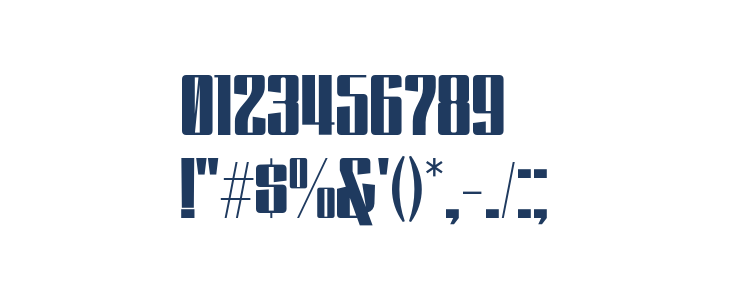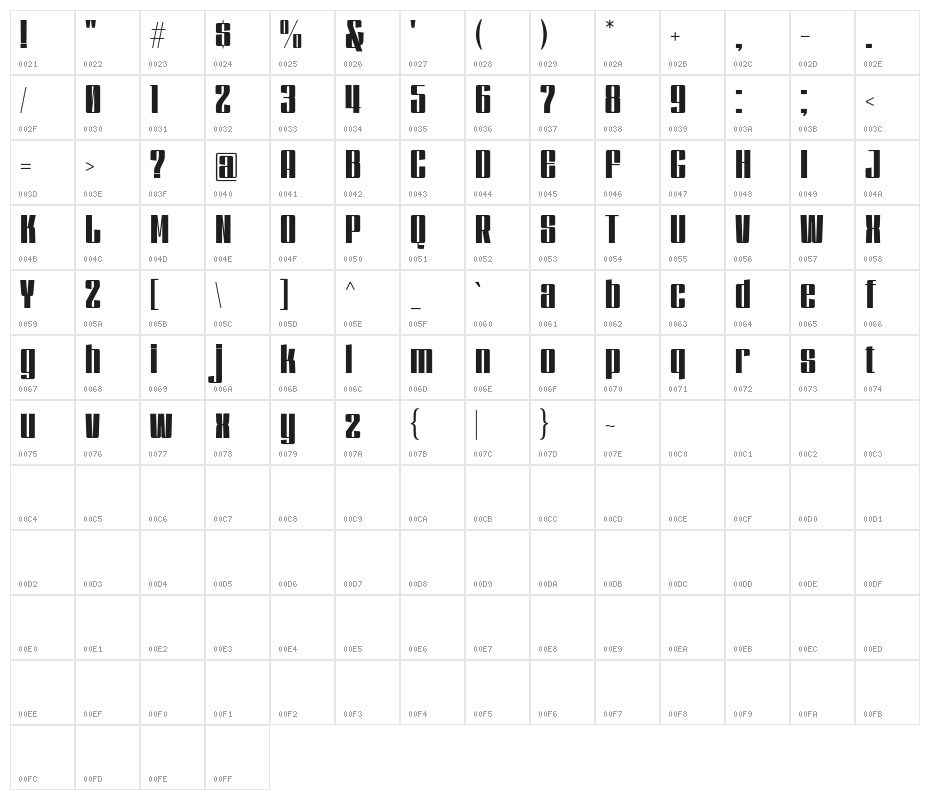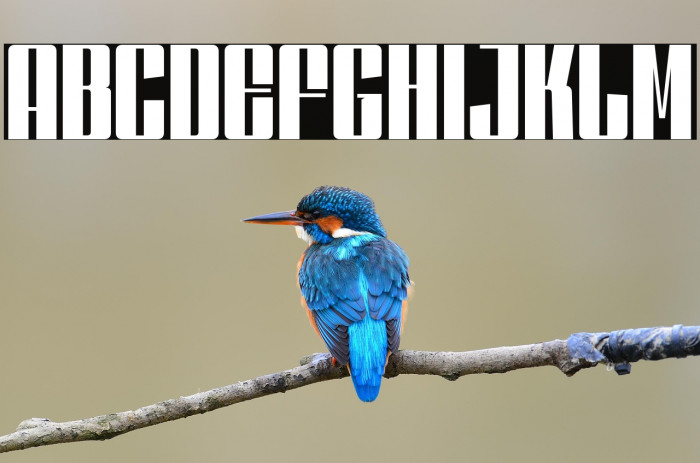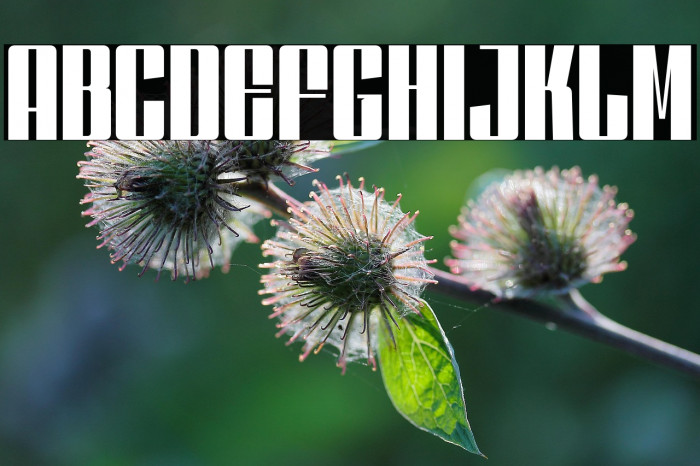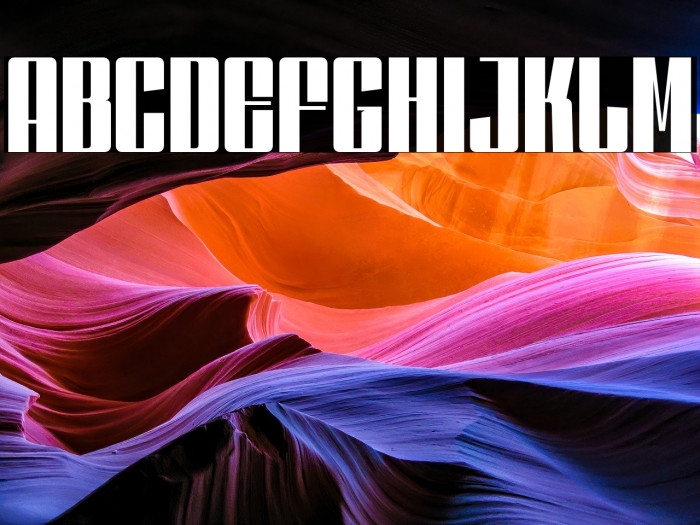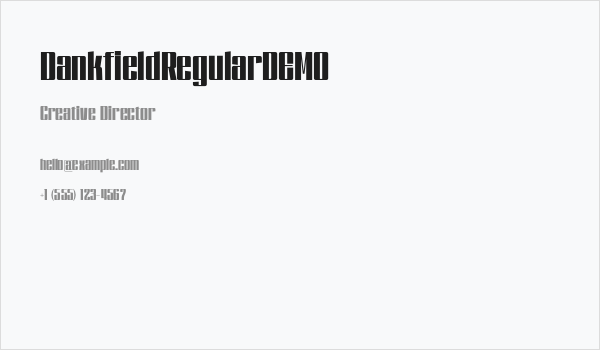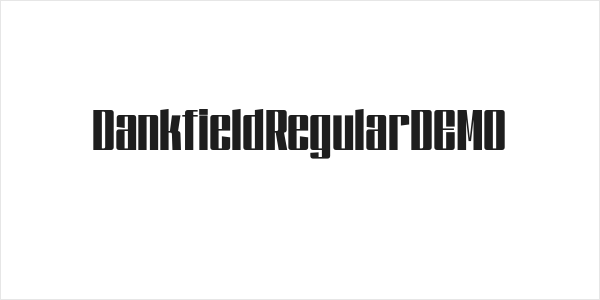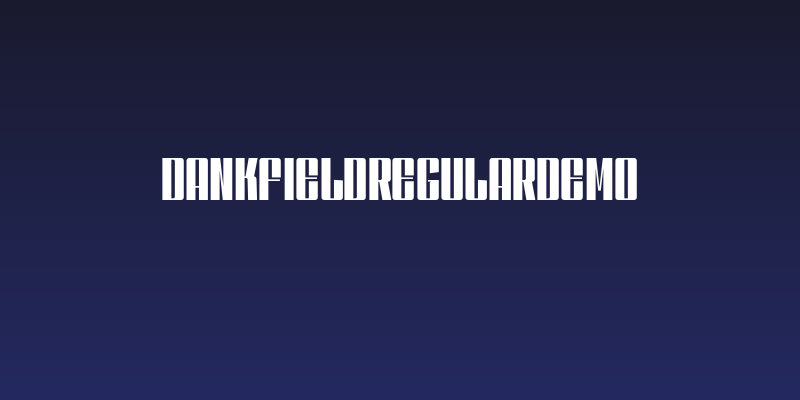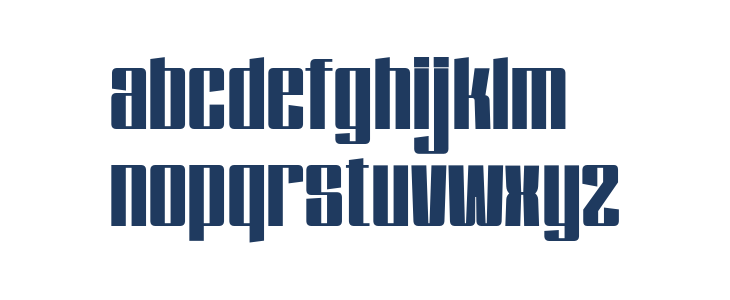
DankfieldRegularDEMO Font
DankfieldRegularDEMO Description
This font features a bold and striking design with a strong geometric influence. The characters are tall and narrow, creating a condensed appearance that emphasizes verticality. The uppercase and lowercase letters maintain a consistent width, contributing to a uniform look across the text. The numbers and special characters are designed to match the boldness and style of the alphabet, ensuring cohesion throughout. The font's high contrast between thick and thin strokes adds to its dramatic and impactful presence, making it ideal for attention-grabbing headlines and display purposes.
| Proposed Projects | Ideal for posters, headlines, branding, and any project requiring a bold, impactful typeface. |